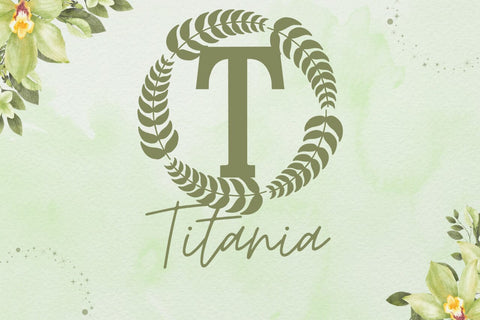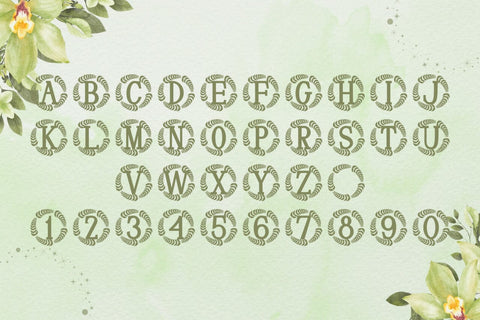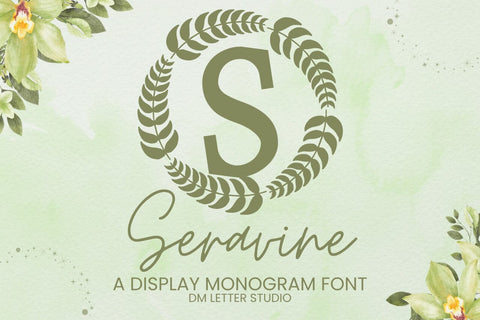
Seravine Monogram Font
Meet Seravine, the Monogram Font
Seravine Monogram Font turns simple initials into polished emblems that read fast. Lines feel smooth and poised. Curves stay open, so tiny tags still look crisp. Use it for wedding suites, boutique logos, keepsake gifts, and premium packaging. Moreover, Seravine pairs beautifully with soft serifs and modern sans, which keeps layouts elegant without extra effort.
Where the Monogram Font shines
Set single, double, or triple initials for logos, seals, and submarks. Then frame them with laurel rings, oval borders, or fine rules to echo the graceful structure. Since proportions favor symmetry, compositions come together in minutes. As a result, your thumbnails stand out and your listings stay consistent across products. Plus, Seravine scales smoothly from jewelry cards to venue signage.
Fast setup, polished results
Design tips for Seravine Monogram Font
Keep initials large and let white space breathe. Pair the headline monogram with a quiet serif or humanist sans. Meanwhile, add micro shadows, a thin inner stroke, or a delicate frame for depth. Because the letterforms feel airy, metallic accents and textured papers raise perceived value. However, keep copy short so the monogram remains the hero.
Select stylistic alternates for key letters
Curves tuned for foil, letterpress, engraving, and clean vinyl cutting
Why creators choose this Monogram Font
You need elegance that reads at a glance and still sells fast. Seravine delivers. It catches the eye in thumbnails, speeds your layout process, and keeps your brand voice cohesive from invites to favors. Therefore, every piece feels intentional, premium, and memorable.